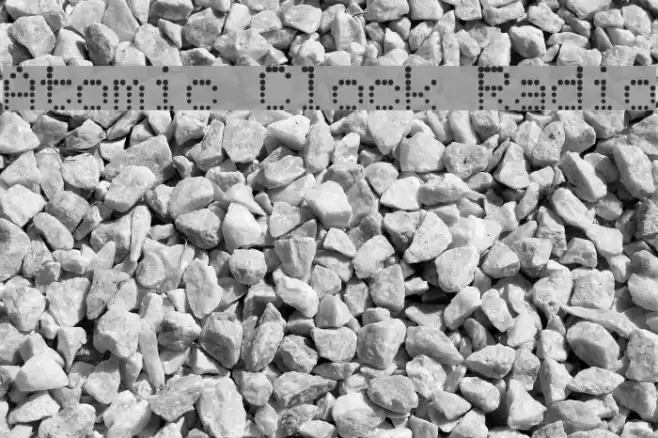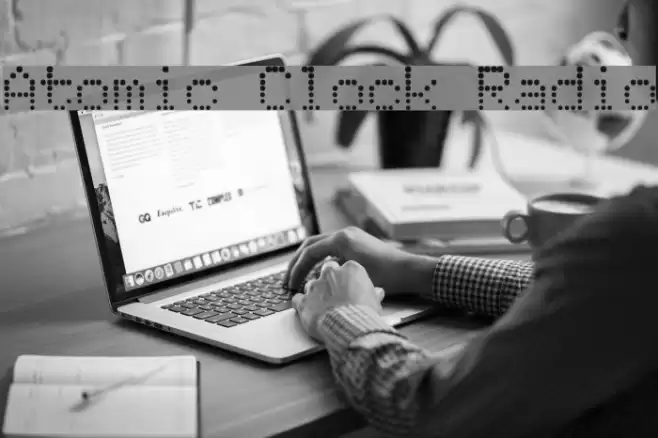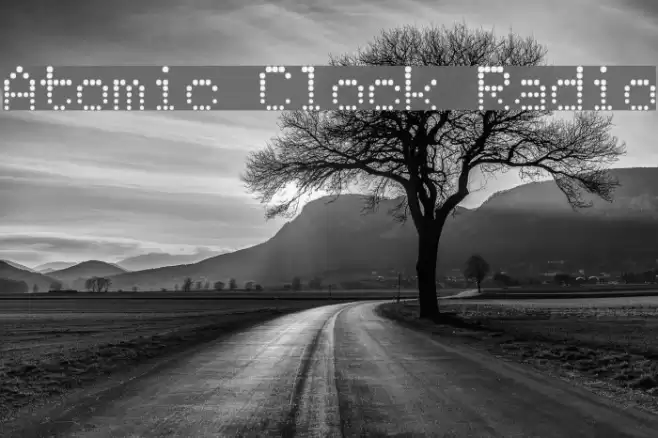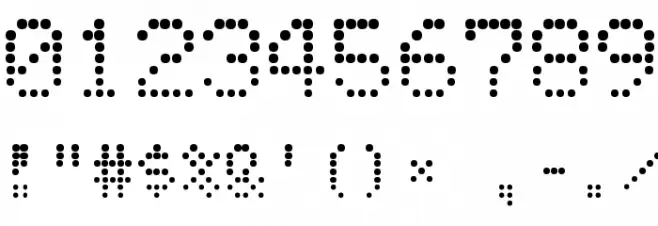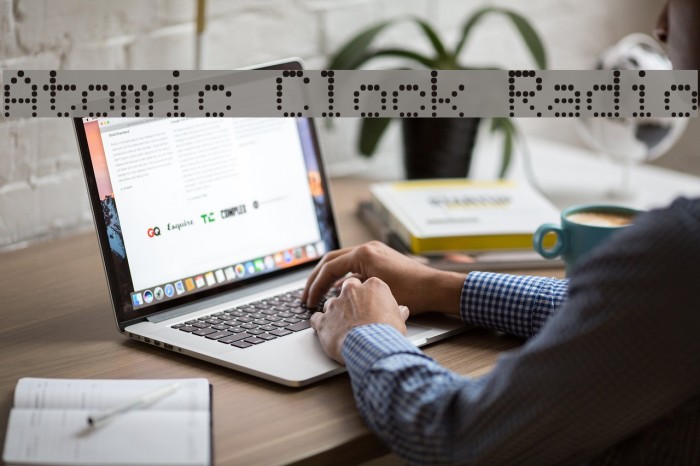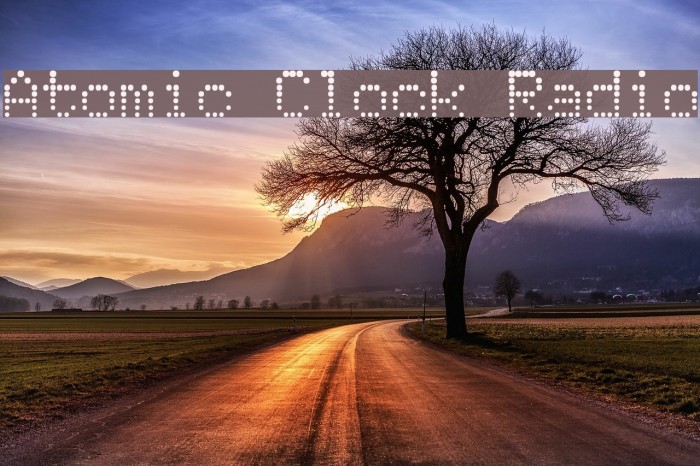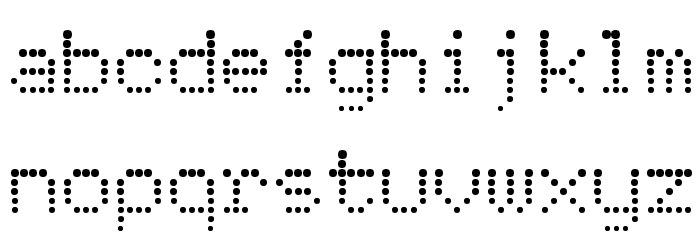
Atomic Clock Radio Font
Atomic Clock Radio Description
This font features a unique dot-matrix style, reminiscent of digital displays and retro technology. Each character is composed of a grid of dots, creating a pixelated effect that is both modern and nostalgic. The uniformity of the dots gives it a clean and structured appearance, while the spacing between the dots adds a sense of openness and readability. This design is particularly effective for conveying a sense of technology, innovation, and digital aesthetics. The font includes a full set of uppercase and lowercase letters, numbers, and a variety of special characters, making it versatile for different applications.
A dot-matrix style font with a digital, retro aesthetic from Dotted fonts.
- Proposed Projects: Ideal for digital displays, tech-themed designs, retro gaming graphics, and futuristic branding.